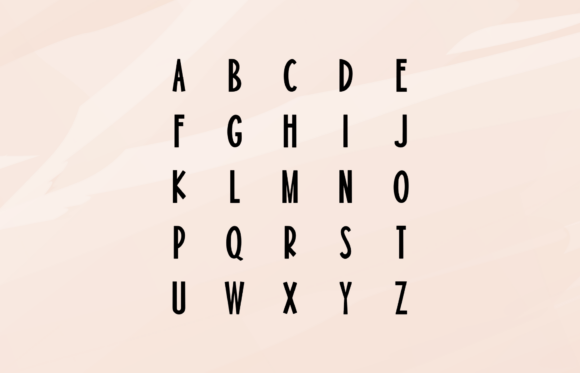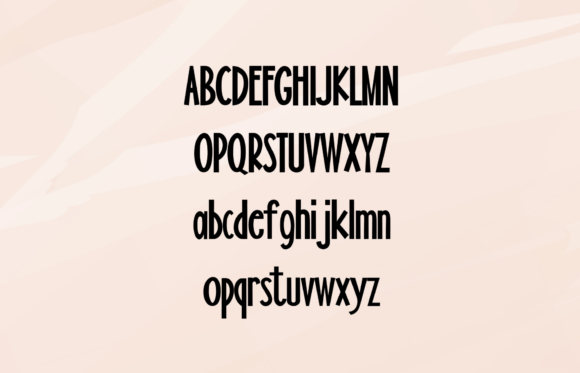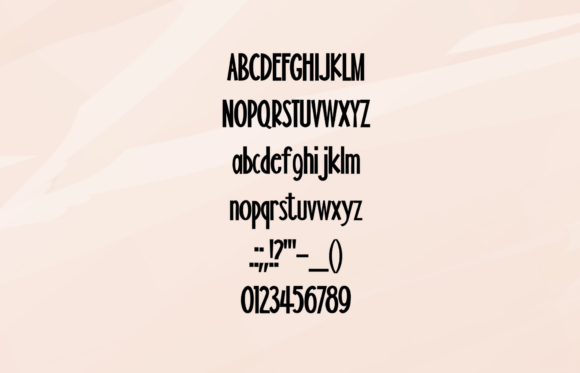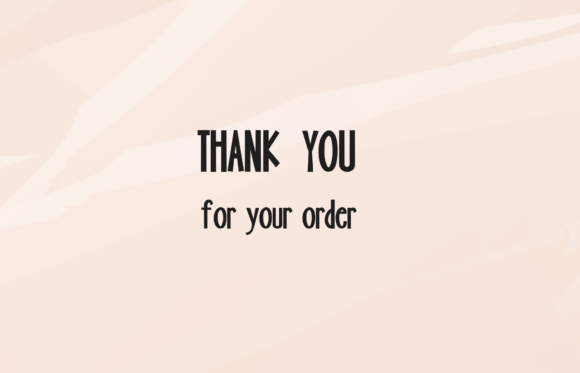
The Sweet Charm of Daisy Daisy Font: A Designer’s Delight
I’ll never forget the time I was working on a wedding invitation project, and my client asked for a font that was “fun, playful, and romantic.” I scoured the internet, tried out dozens of fonts, but nothing seemed quite right. That was until I stumbled upon Daisy Daisy font. It was love at first sight! 💕 This sweet and friendly handwritten display font has become a staple in my design toolkit, and I’m excited to share its charm with you.
- ✅ Extremely versatile: perfect for crafts, digital design, presentations, wedding invitations, cards, and more!
- ✅ Fun and playful vibe: adds a touch of whimsy to any design
- ✅ Easy to read: despite its playful nature, Daisy Daisy font is surprisingly legible
- ✅ Great for kids and adults alike: ideal for use in school for both teachers and students
- ⚠️ Limited use in formal or corporate designs: Daisy Daisy font is best suited for creative and playful projects
- ⚠️ May not work well in small sizes: it’s best used in larger sizes where its playful details can shine
A Practical Guide: Using Daisy Daisy Font in Your Designs
In Adobe Photoshop or Illustrator, you can access Daisy Daisy font’s OpenType features by selecting the font and then navigating to the “Window” menu > “Typography.” From there, you can explore the font’s glyphs, stylistic alternates, and other features. For example, you can use the font’s swashes to add a touch of elegance to your design.
The Story Behind Daisy Daisy Font
Daisy Daisy font was designed with the intention of creating a fun and playful font that would bring joy to designers and readers alike. The designer aimed to capture the whimsical and carefree spirit of childhood, making it perfect for projects that require a touch of playfulness.